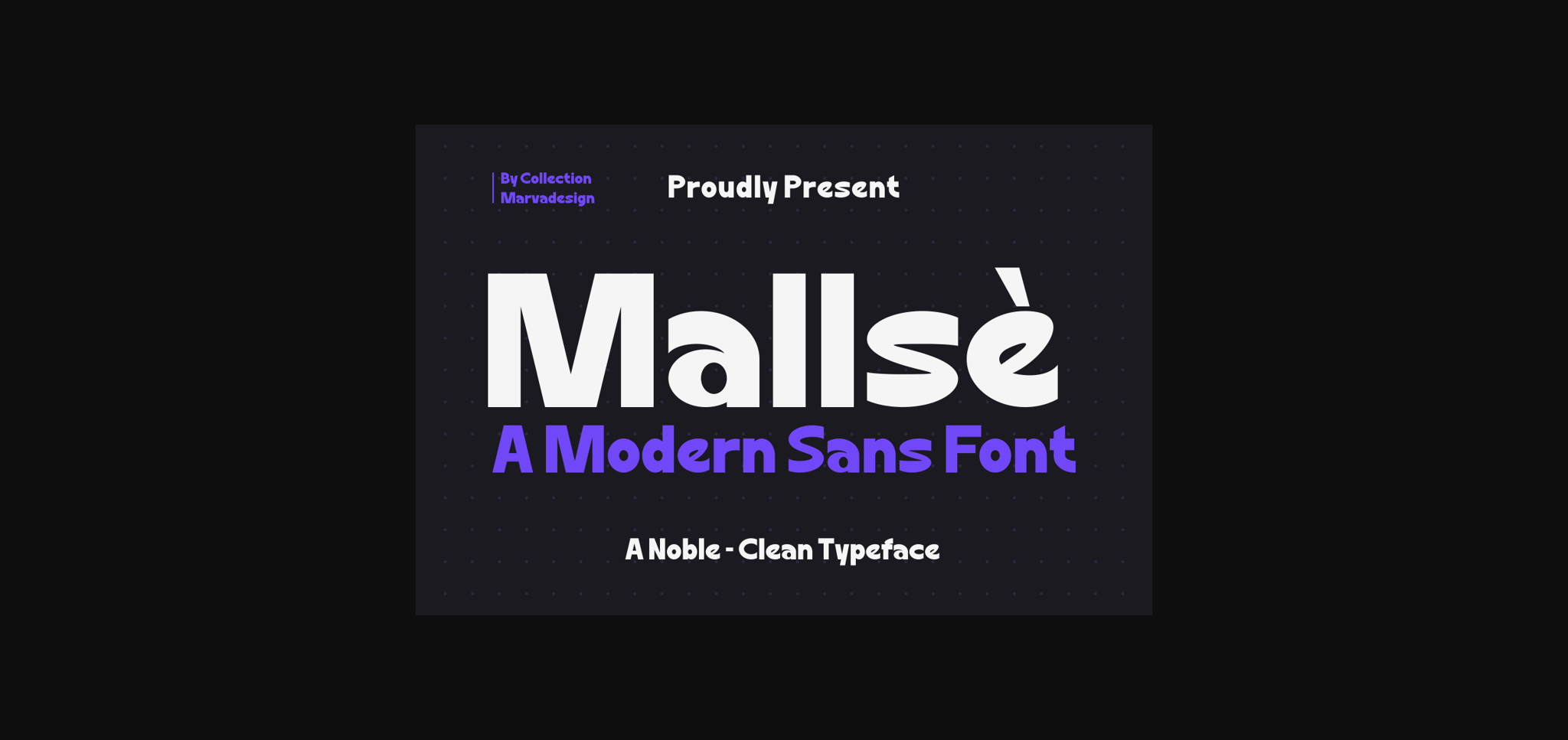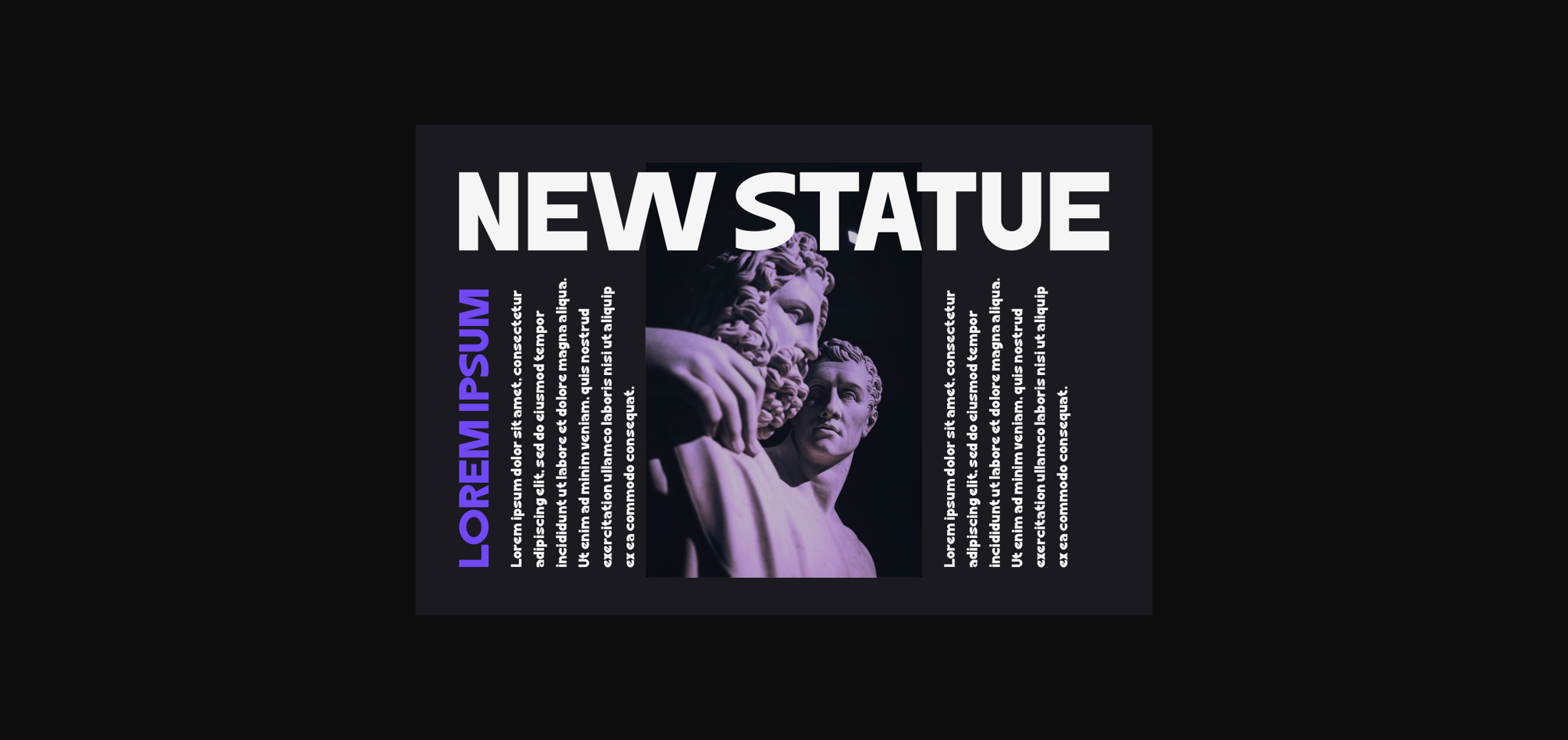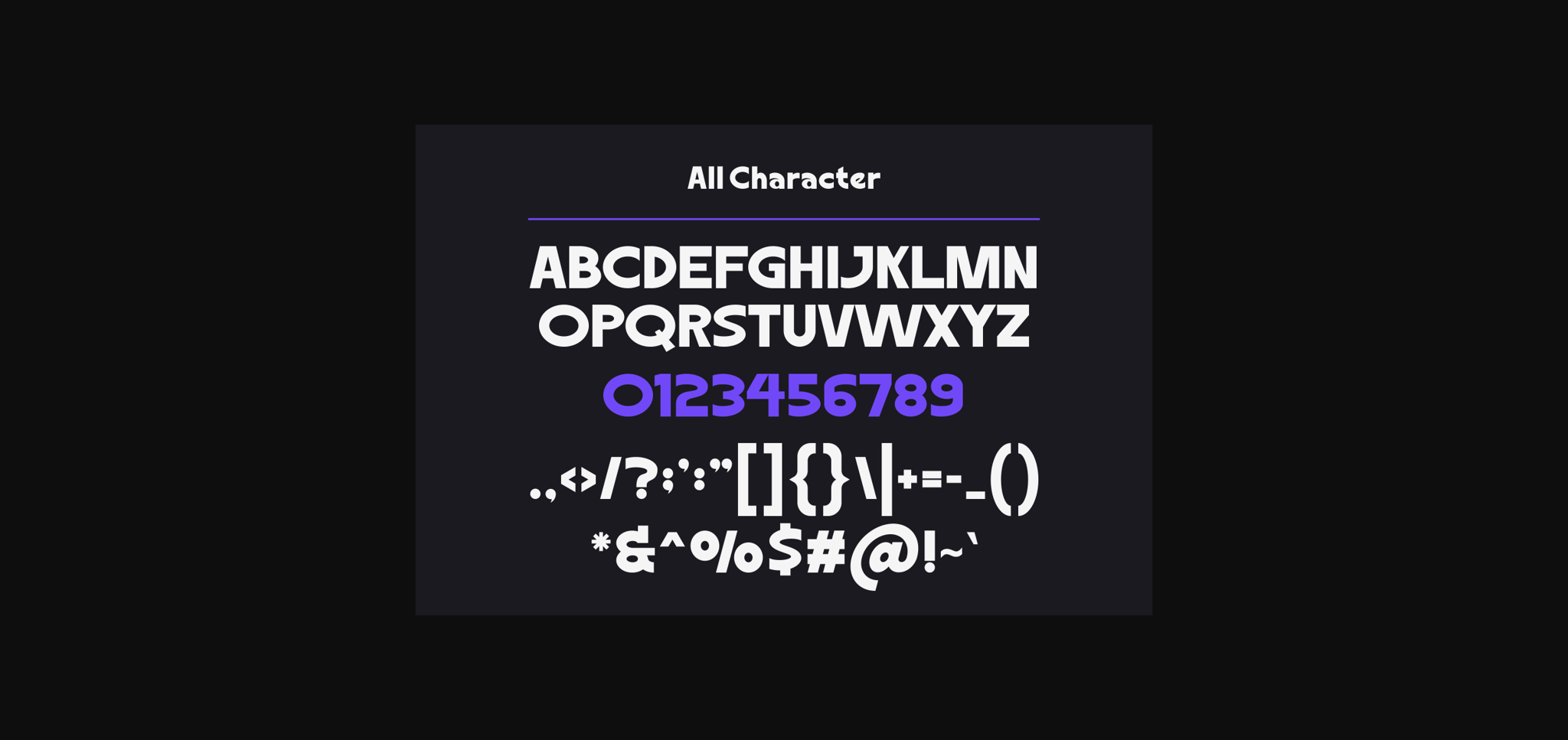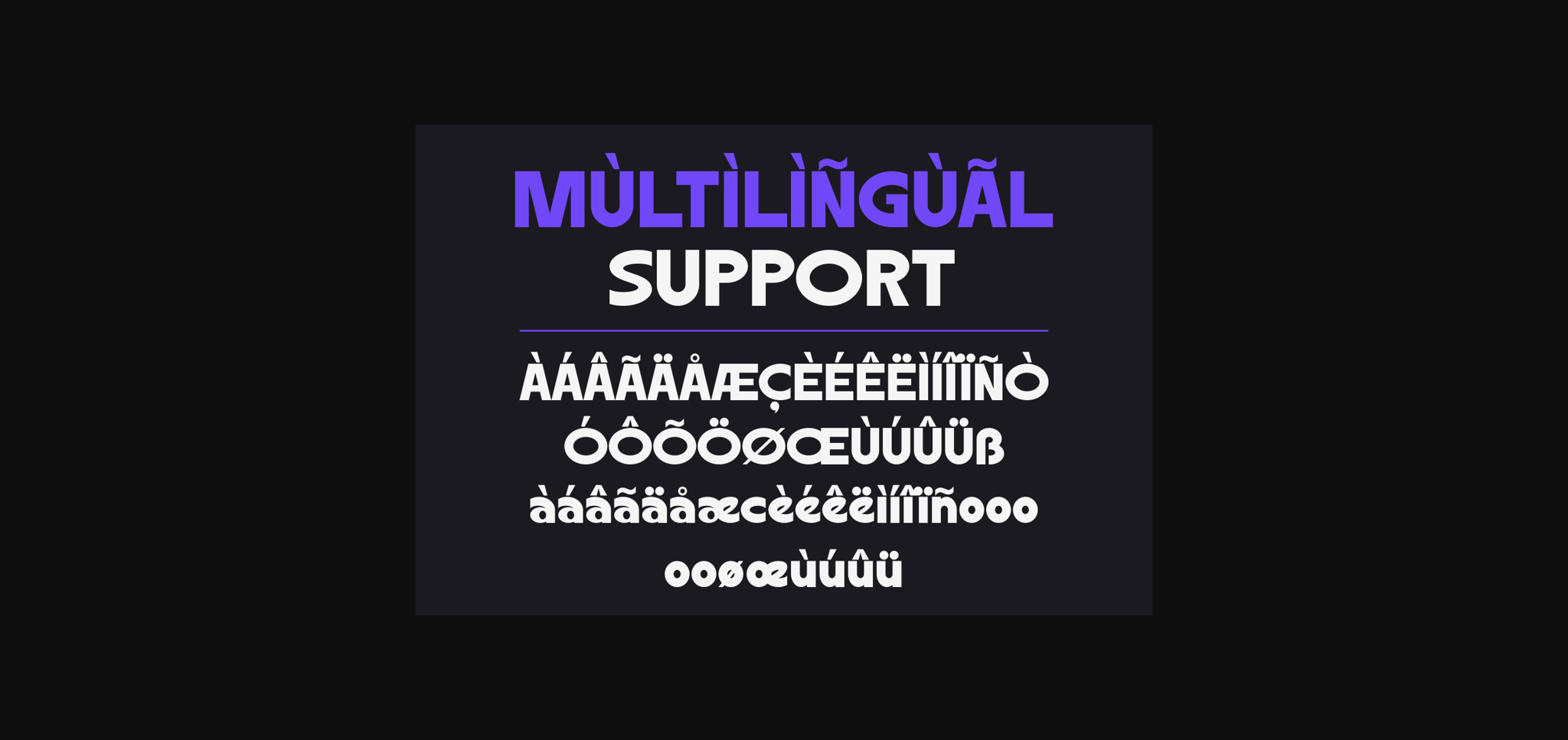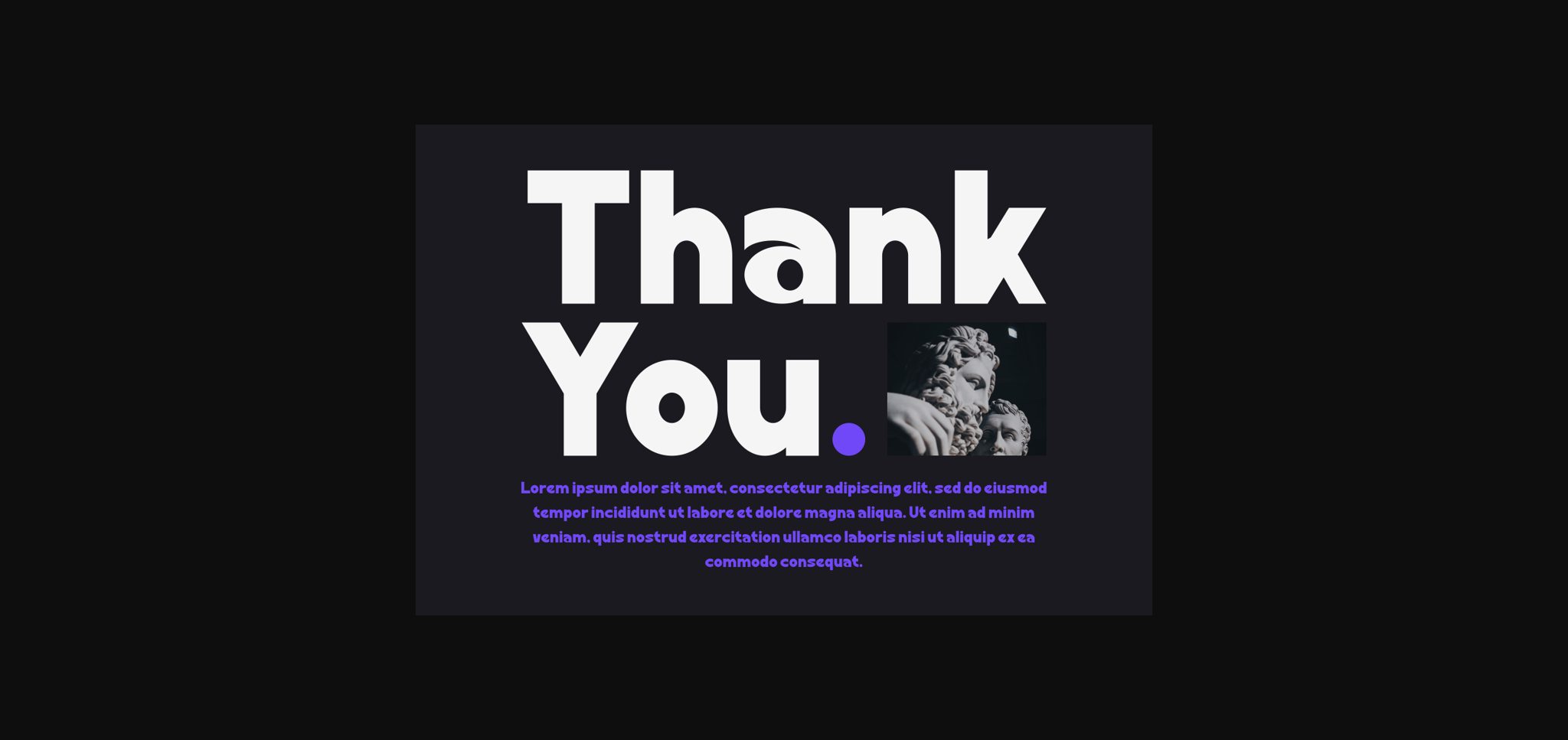
Mallse Font
About Mallse Font
Mallse is a modern sans serif font that combines clean lines with contemporary style. Its simplicity makes it easy to read, while its modern aesthetic adds a touch of sophistication to your designs. Whether you’re working on a professional presentation or a sleek project, Mallse’s versatility makes it a reliable choice. Elevate your text with this modern sans serif font for a clean and stylish look that suits a variety of applications.